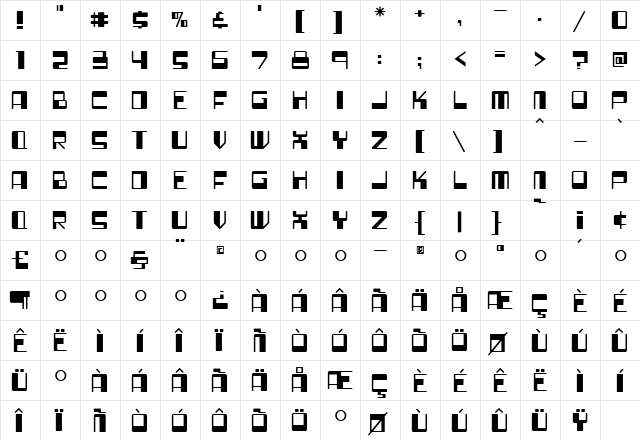
Roadhouse Medium Font Preview
Roadhouse Medium
Roadhouse Medium Font Details
| Foundry | Brand Design Co., Inc |
| Copyright | Copyright 1995 Brand Design Co., Inc./House Industries. Font by Ken Barber. |
Design Context for Roadhouse Typeface
Roadhouse is a composed and adaptable typeface that performs quietly and consistently across a wide range of design contexts.